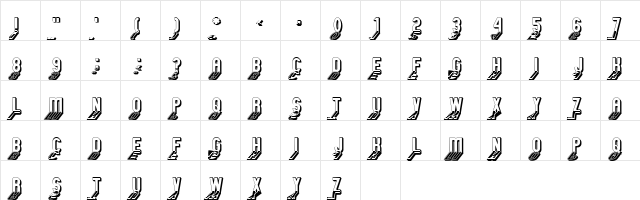
GM Exp Shadow Gravestone Regular
Design Context for GM Exp Shadow Gravestone Typeface
GM Exp Shadow Gravestone brings ornamental detail and strong personality to headlines and identities, where visual impact matters more than quiet functionality.
Font Pairing: Pair with a clean neutral sans-serif for body copy to let GM Exp Shadow Gravestone's character lead without overwhelming the composition.
Pro Tip: Use GM Exp Shadow Gravestone exclusively at display sizes — it was designed to be seen, not read at length. Let a neutral companion handle body copy.